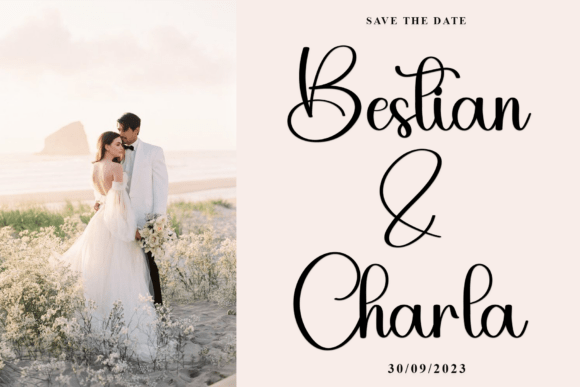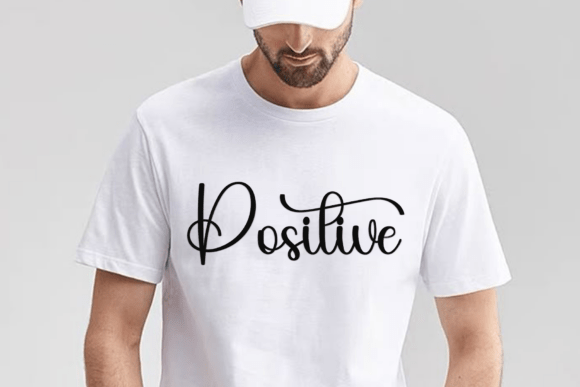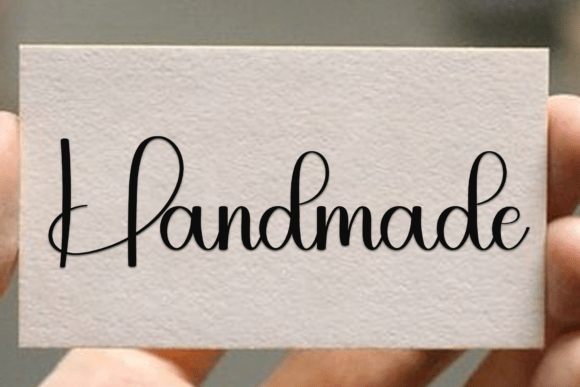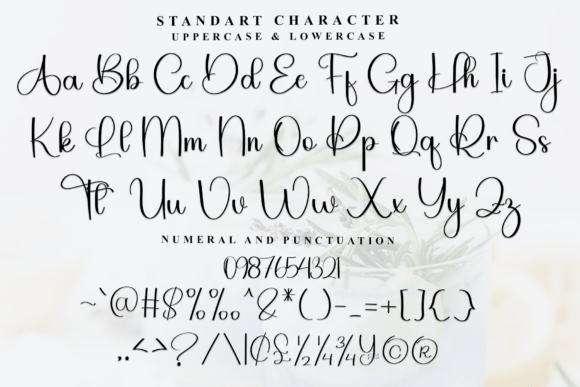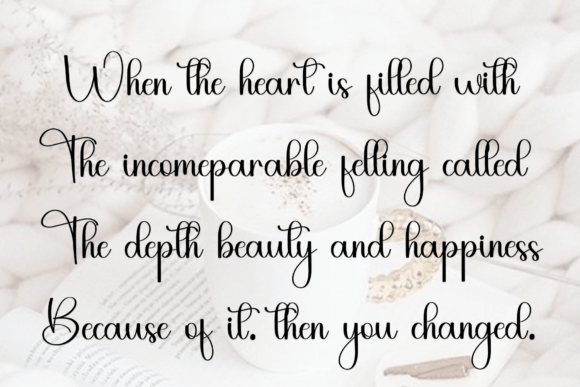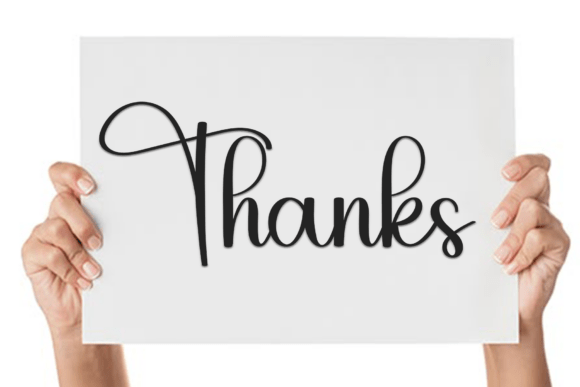
Introducing Autograph Font: The Perfect Blend of Casual and Creative
Are you looking for a font that can add a personal touch to your designs? Look no further than Autograph Font, a charming and creative typeface that exudes warmth and friendliness. With its round, playful strokes, Autograph Font is perfect for personal projects, invitations, social media graphics, and any design that requires a relaxed and approachable feel.
The Characteristics of Autograph Font
Autograph Font is a hand-drawn font that boasts a unique and fun aesthetic. Its casual and creative design makes it ideal for designers and crafters who want to add a personal touch to their work. The font’s round strokes create a sense of warmth and approachability, making it perfect for designs that require a friendly and inviting feel.
What Makes Autograph Font Special?
Autograph Font is equipped with standard PUA Encoded glyphs, which are designed to work seamlessly with various application engines such as Adobe Photoshop, Corel, Adobe Illustrator, Canva, and many others. This means that you can easily use Autograph Font in your designs, regardless of the software or platform you’re using.
Uses of Autograph Font
Autograph Font is a versatile typeface that can be used in a variety of design projects, including:
- Personal projects: Add a personal touch to your personal projects, such as photo albums, scrapbook pages, and craft projects.
- Invitations: Create beautiful and unique invitations for special occasions, such as weddings, birthday parties, and baby showers.
- Branding: Use Autograph Font to create a friendly and approachable brand identity for your business or organization.
Benefits of Using Autograph Font
Using Autograph Font in your designs offers several benefits, including:
- Unique and creative aesthetic: Autograph Font adds a fun and unique touch to any design.
- Easy to use: Autograph Font is equipped with standard PUA Encoded glyphs, making it easy to use in various application engines.
- Versatile: Autograph Font can be used in a variety of design projects, from personal projects to commercial branding.
- Time-saving: With Autograph Font, you can create professional-looking designs in no time.
Tips for Using Autograph Font
Here are some tips for using Autograph Font in your designs:
- Pair with other fonts: Pair Autograph Font with other fonts to create a unique and interesting contrast.
- Experiment with colors: Experiment with different colors to find the perfect combination that matches your design.
- Use in combination with graphics: Use Autograph Font in combination with graphics and images to create a visually appealing design.